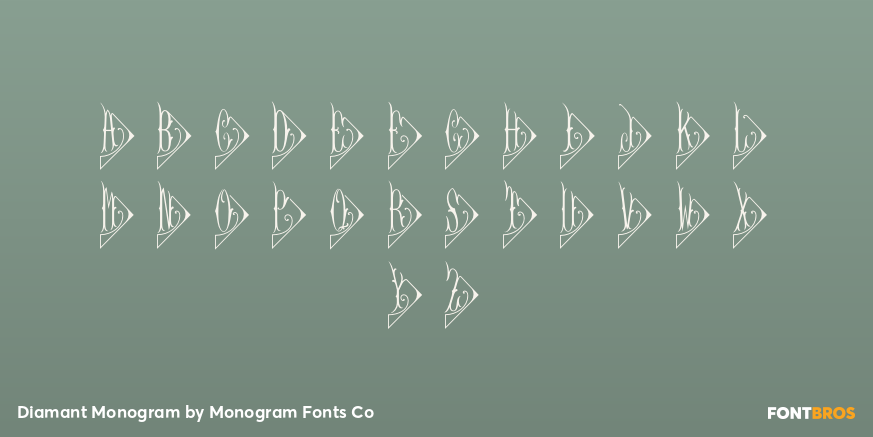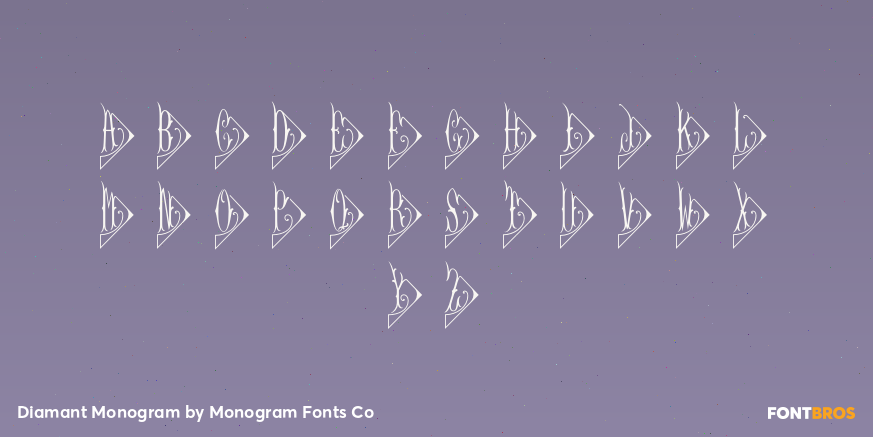
Diamant Monogram
Font Family by Monogram Fonts Co
The inspiration source for Diamant Monogram is a stylishly formal letterset flaring out to create a diamond framework from a vintage embroidery publication. Originally intended to adorn handkerchiefs, it has so many other possibilities. Its obvious diamond shape inspired the name "Diamant" or "Diamond" in French. This is one of many monogram designs from the early 1900's which fall into a two letter format that is either adorned or interwoven with framing styles.
Diamant Monogram is only capable of two letter monograms due to its unique design. It was originally designed to have outlined initials, but solid and outline versions have been created for more versatility and appeal. Download and view the "Diamant Monogram Guidebook" if you would like to learn a little more. There is a guidebook for both the Pro and Standard fonts included in the font package.